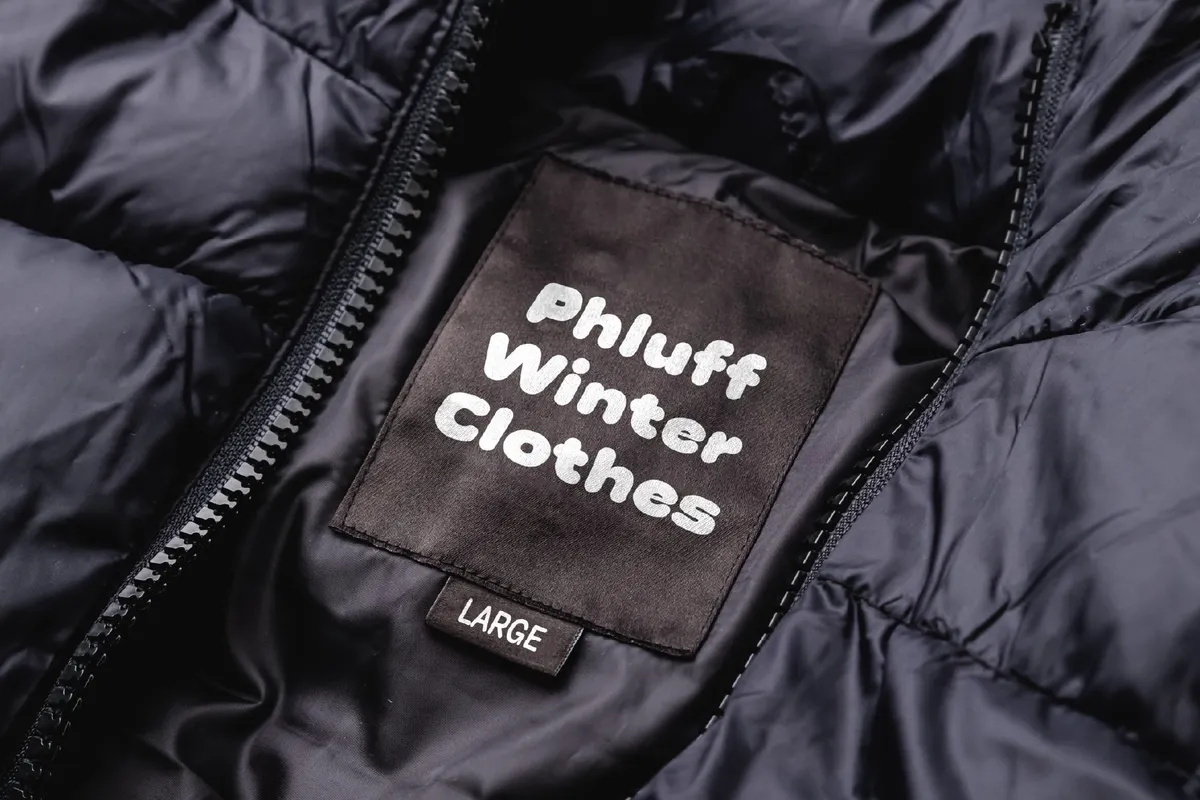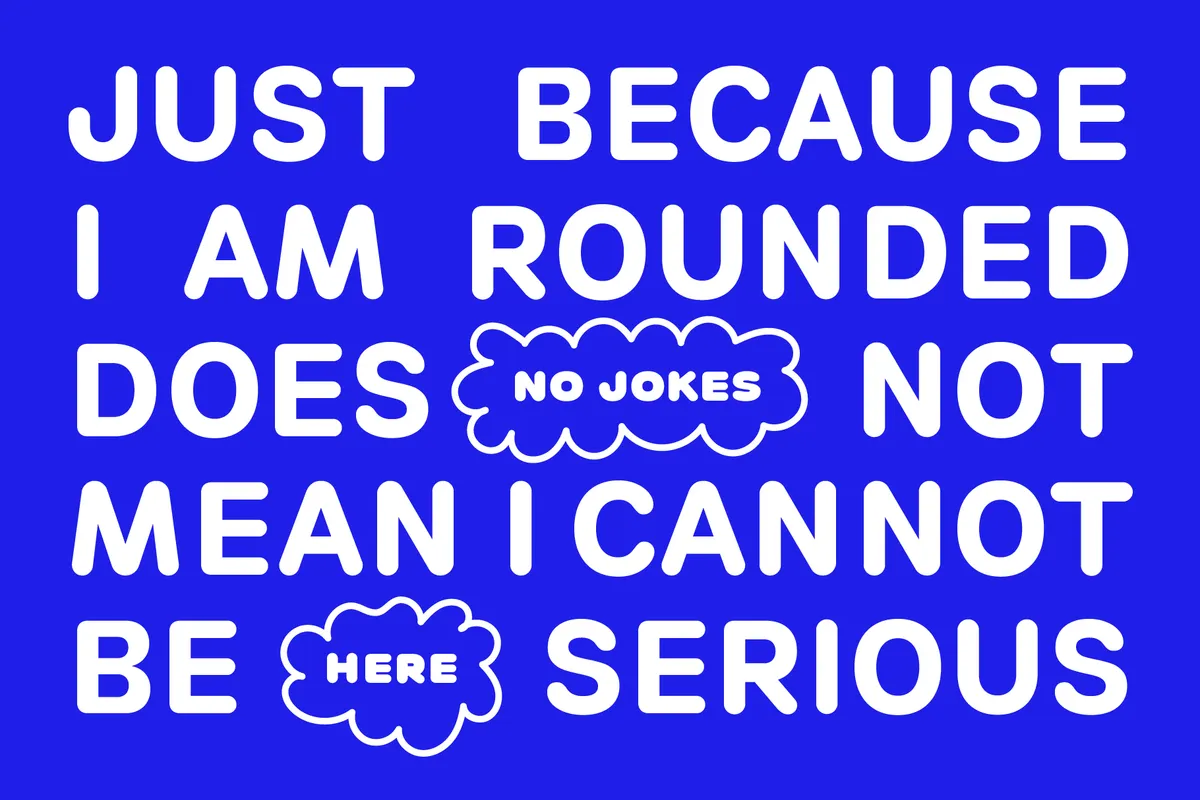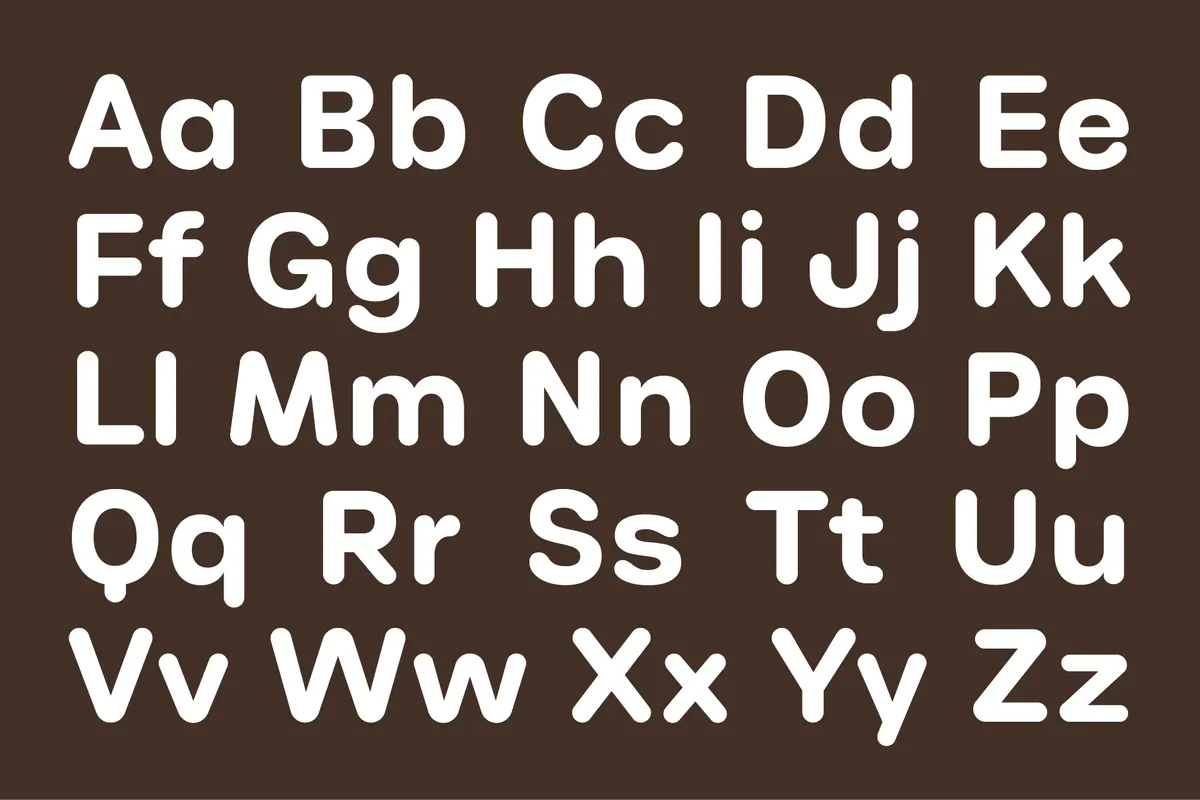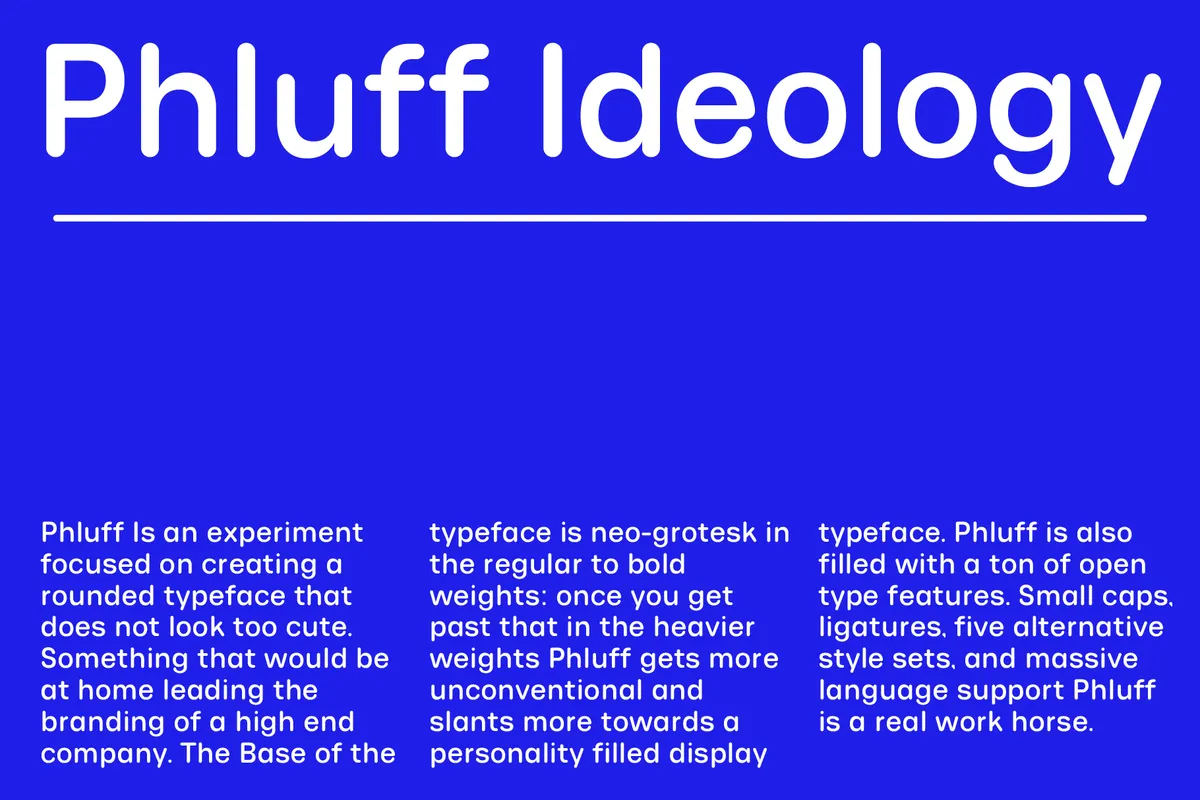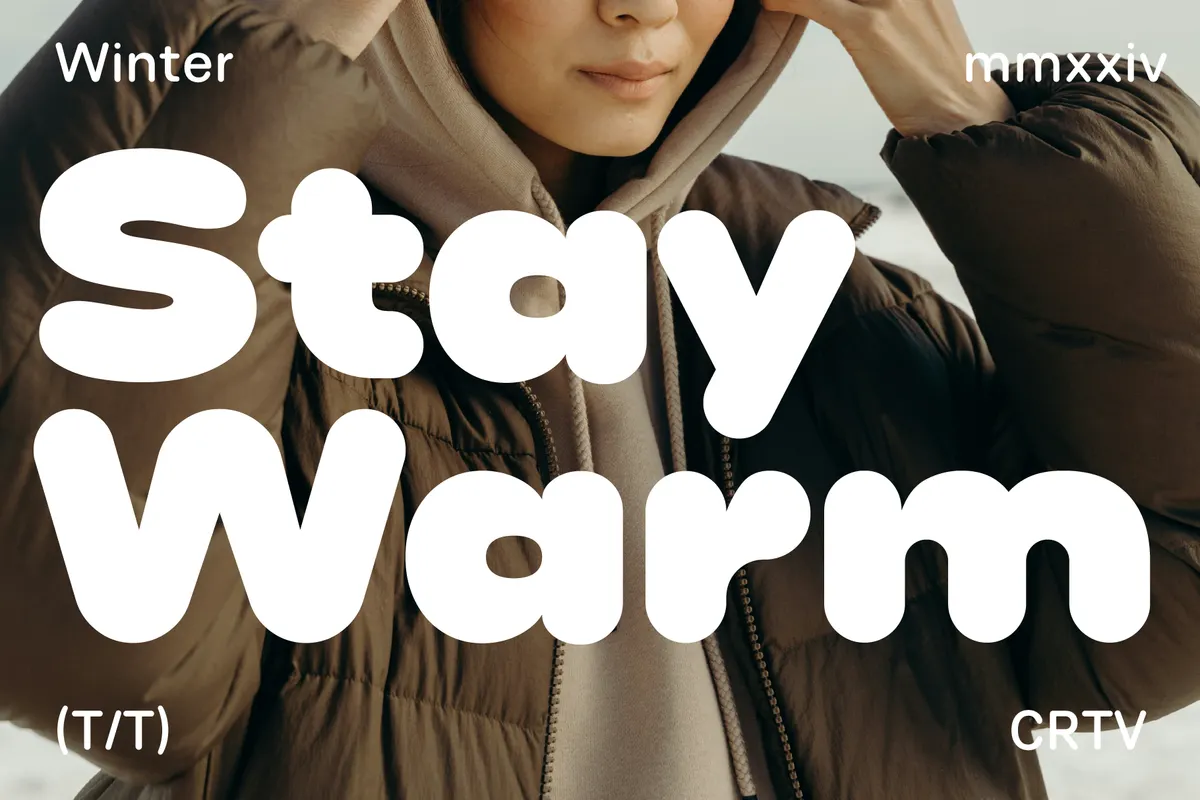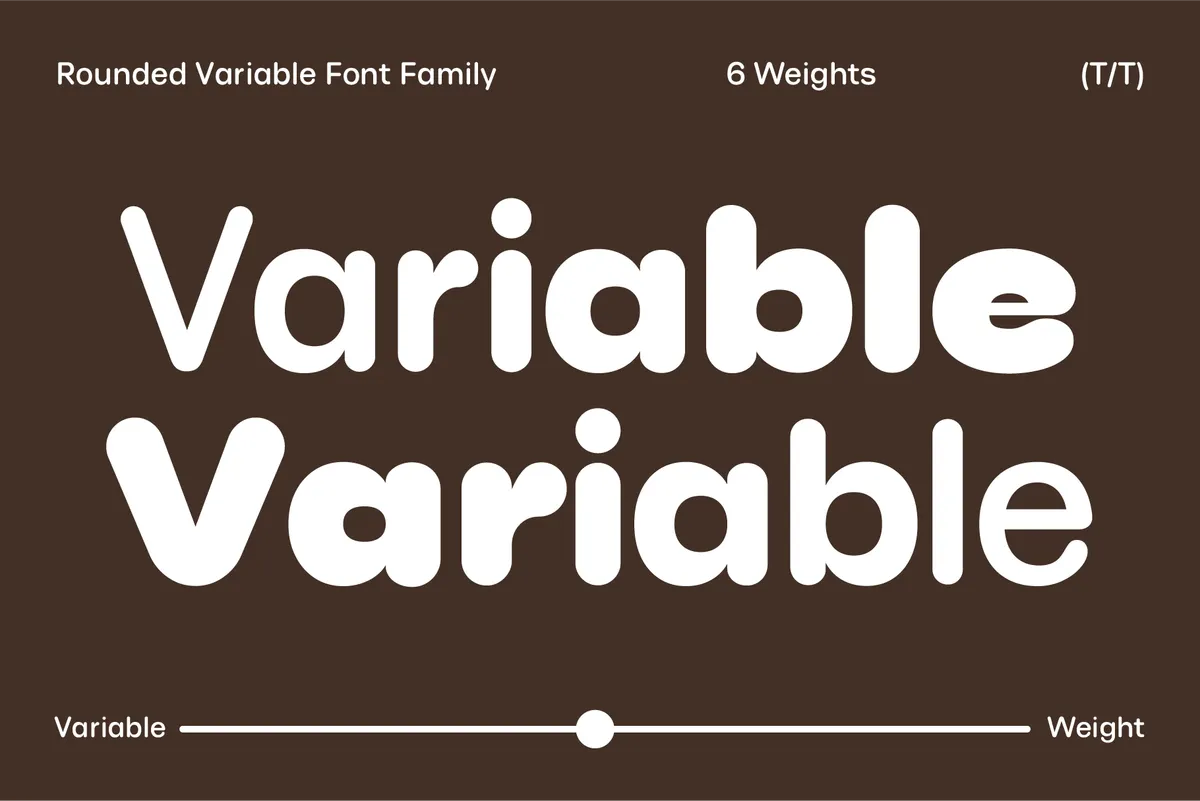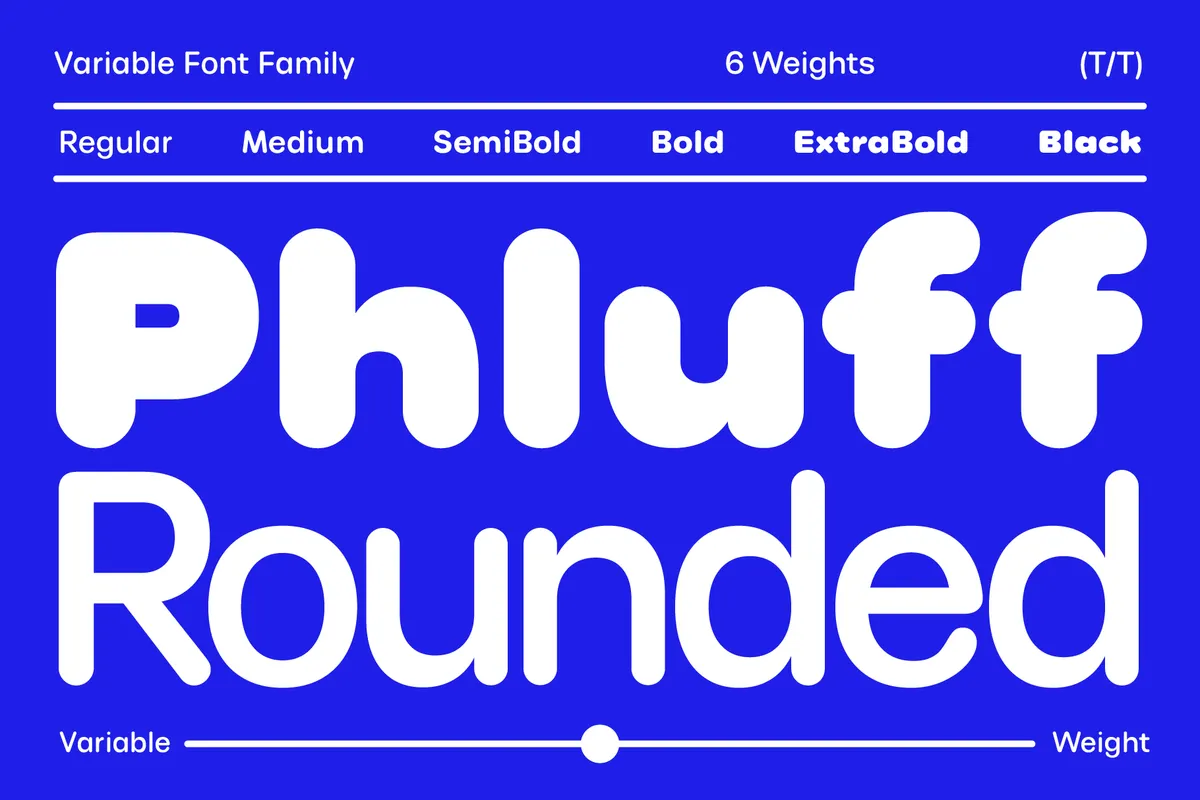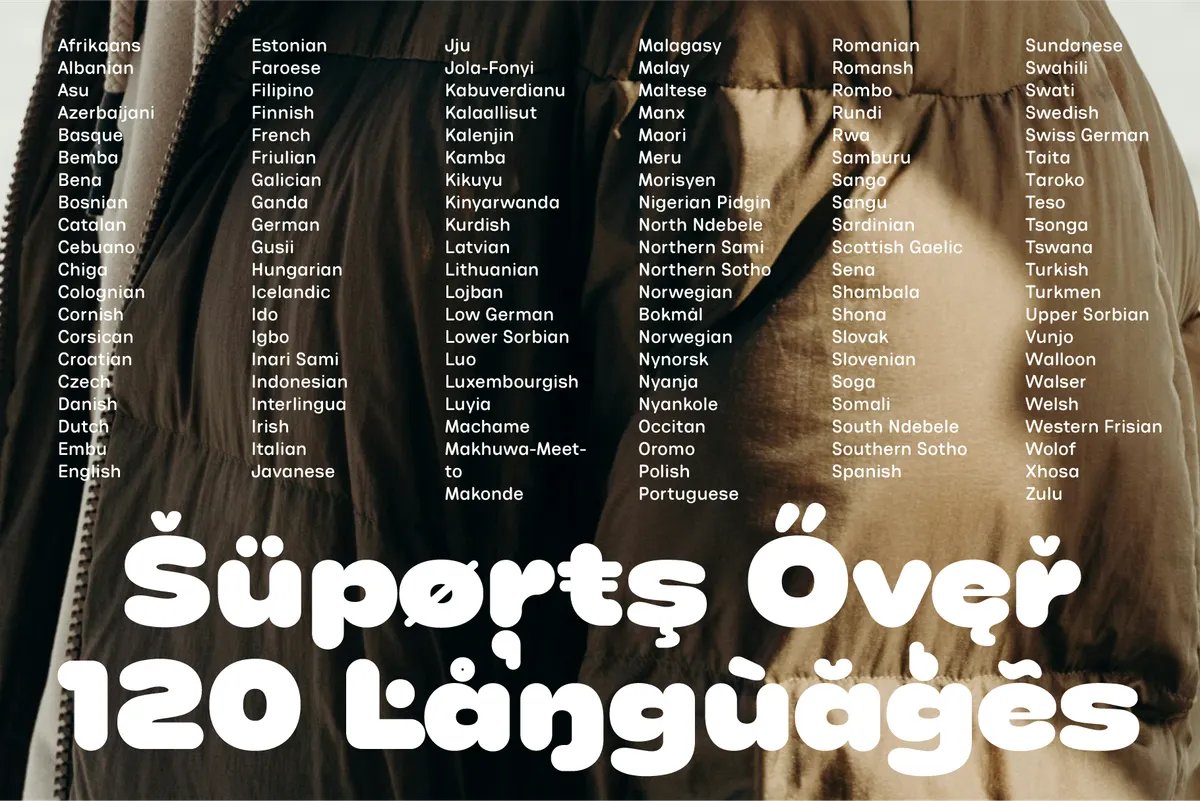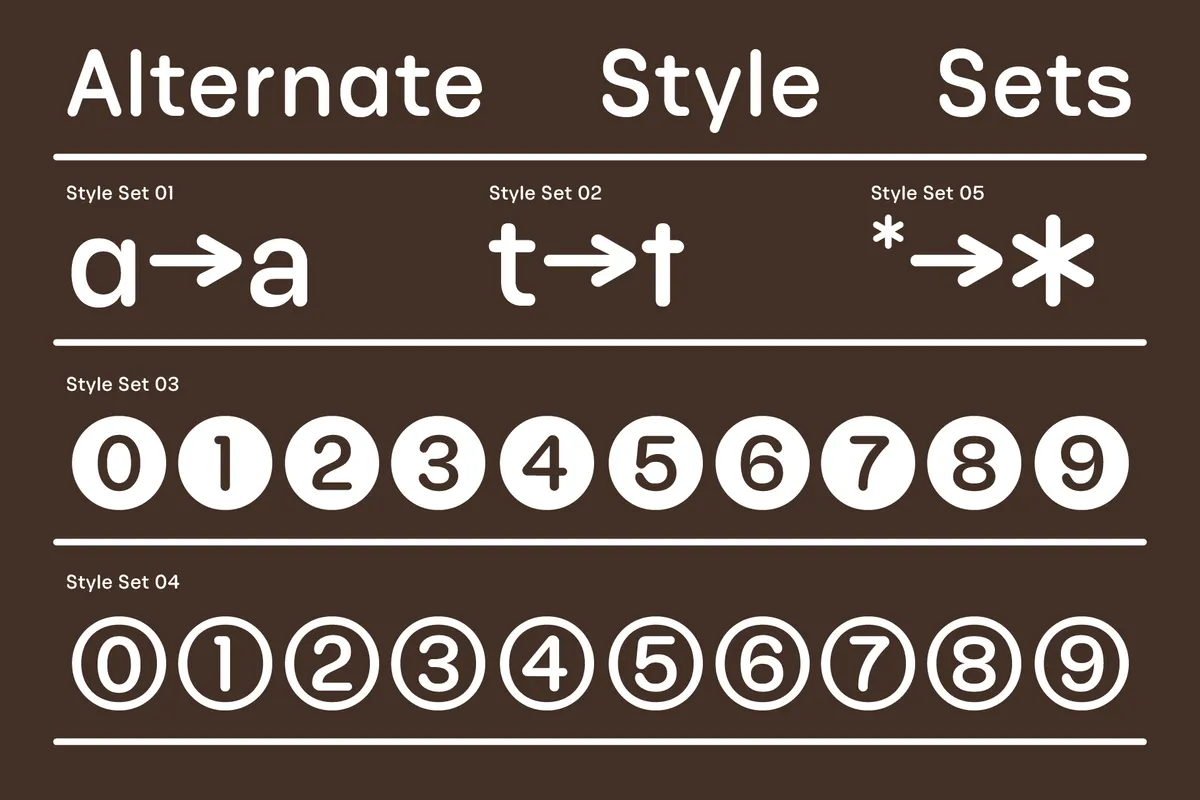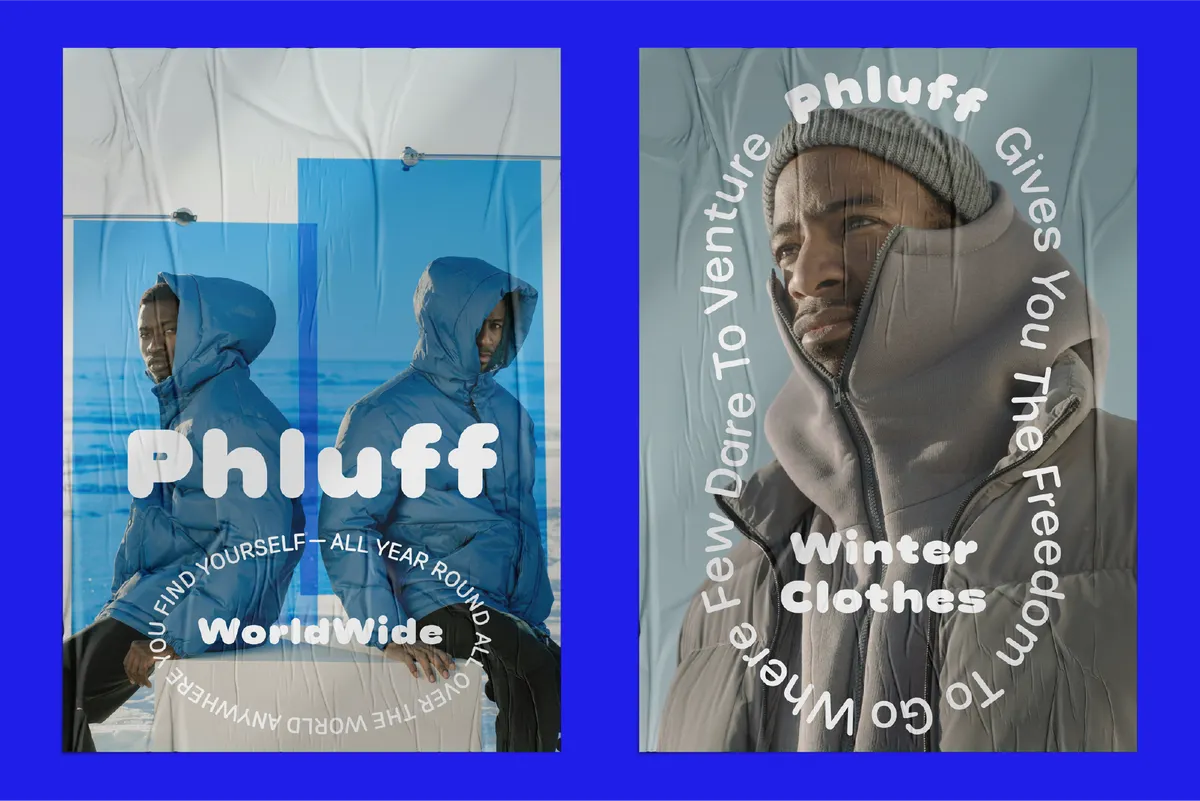
Phluff - Rounded Sans Variable Family
Phluff is a rounded sans variable family built from soft, bubble-round terminals and a bouncy, high-set x-height, closer to blobby toy-block lettering than a straight geometric sans. The variable weight axis runs from a light Regular through a dense Black, so a single file dials in exactly how loud or soft the round shapes read.
Phluff works best where a design wants friendliness without losing polish, from a boutique cosmetics label to a kids' product line. Use it for branding and logos, app icons and UI headers, magazine mastheads, social campaign graphics, packaging labels, poster and invitation design, onboarding screens, and editorial pull quotes.
- uppercase & lowercase;
- numerals, punctuation & symbols;
- ligatures, small caps, ordinals, fractions, superscript & subscript figures, case-sensitive punctuation & 5 stylistic alternate sets;
- multilingual support;
- 666 glyphs per style